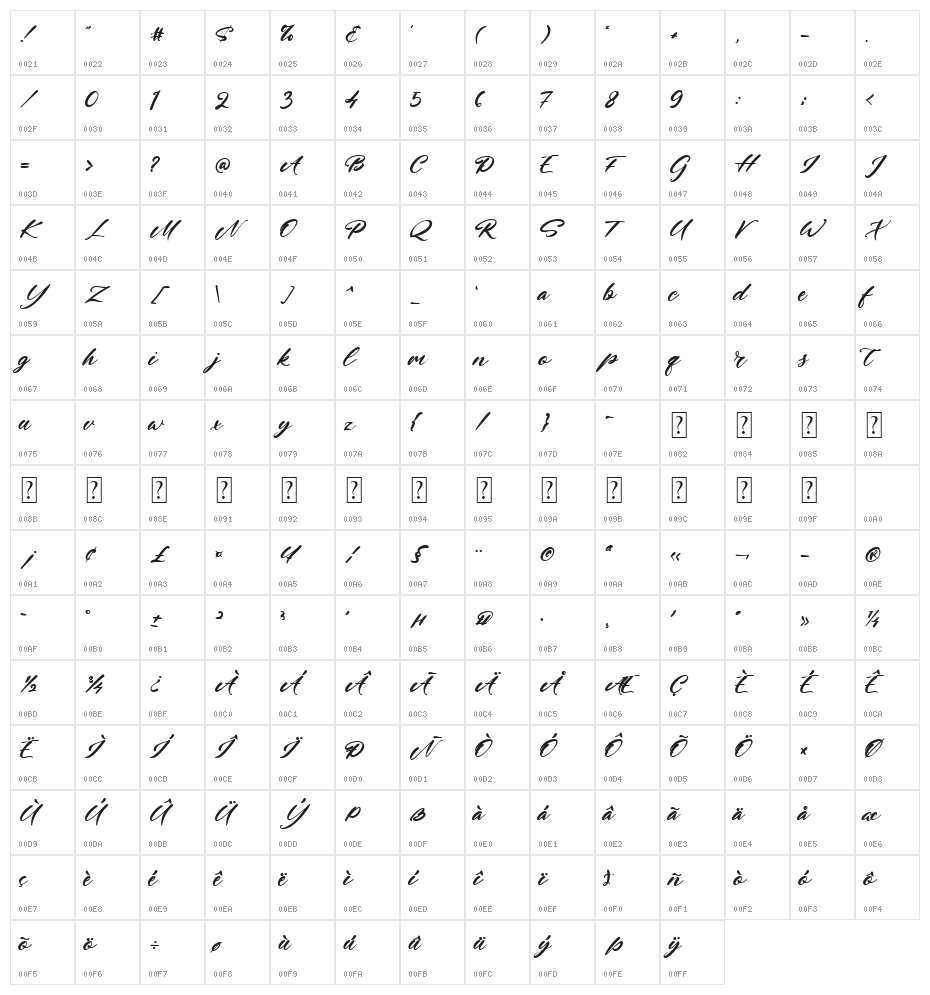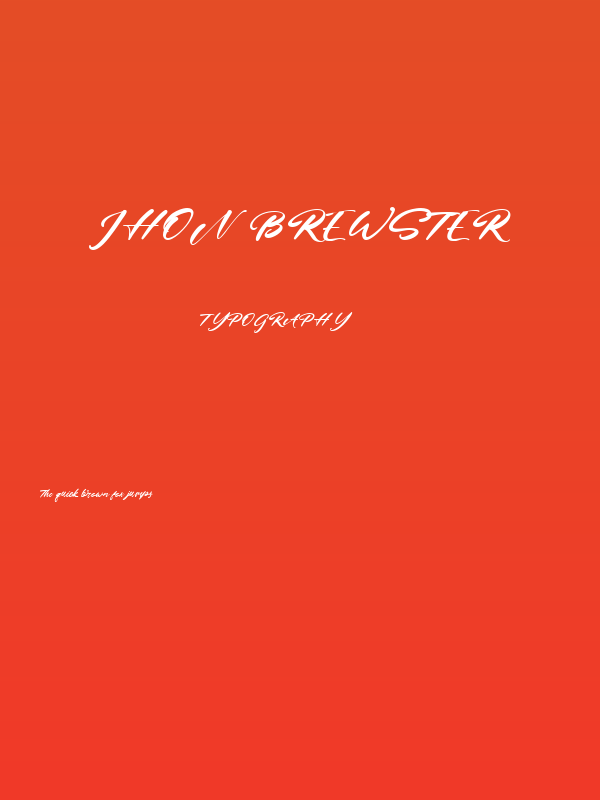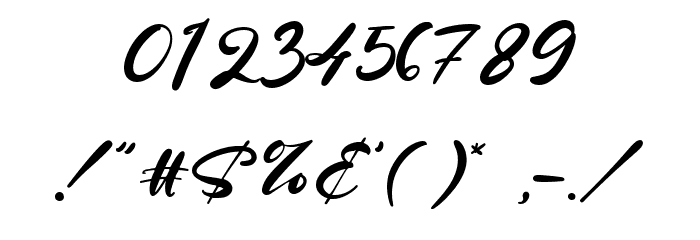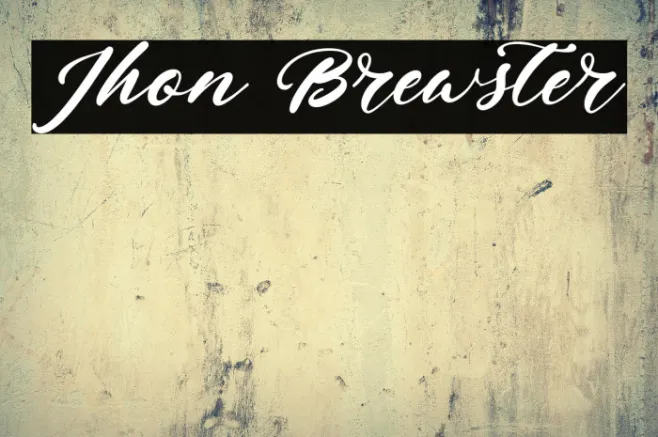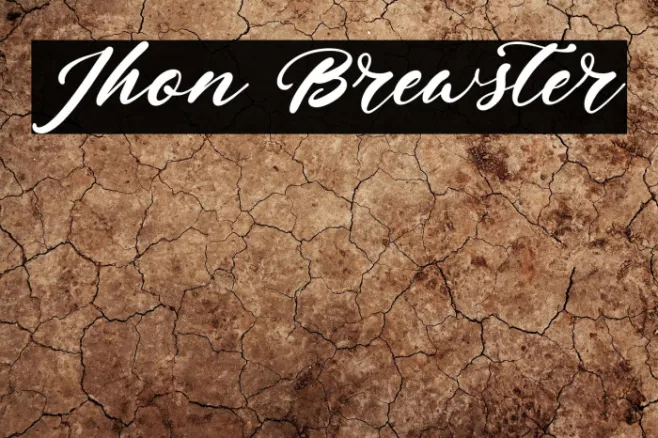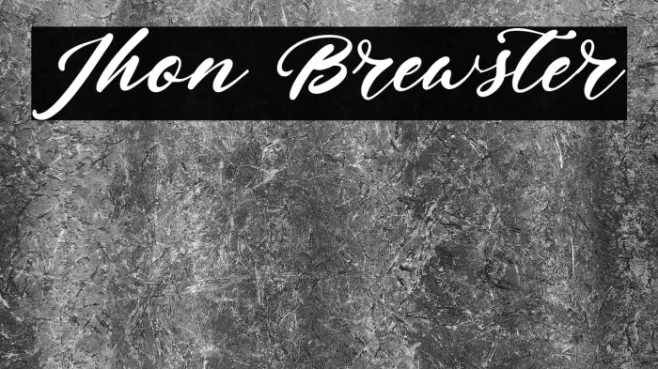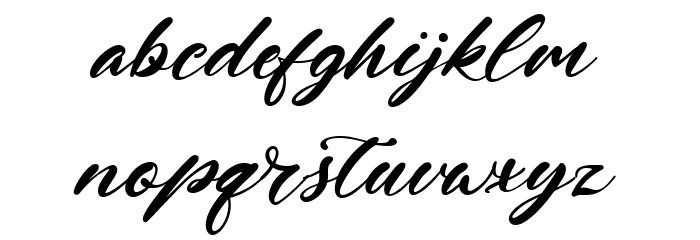
Jhon Brewster Font
Jhon Brewster Description
This font features a flowing, cursive style with elegant, sweeping strokes that give it a sophisticated and artistic appearance. The uppercase letters are bold and slightly slanted, adding a dynamic feel, while the lowercase letters maintain a consistent fluidity that enhances readability. The numerals are distinct and well-proportioned, complementing the overall aesthetic. Special characters are designed with the same attention to detail, ensuring they integrate seamlessly with the rest of the typeface. This font's design is perfect for projects that require a touch of elegance and creativity.
| Overall Style | Elegant |
| Use Case | Logos, Invitations, Decorative text |
| Proposed Projects | Ideal for wedding invitations, greeting cards, branding, and logo design. |